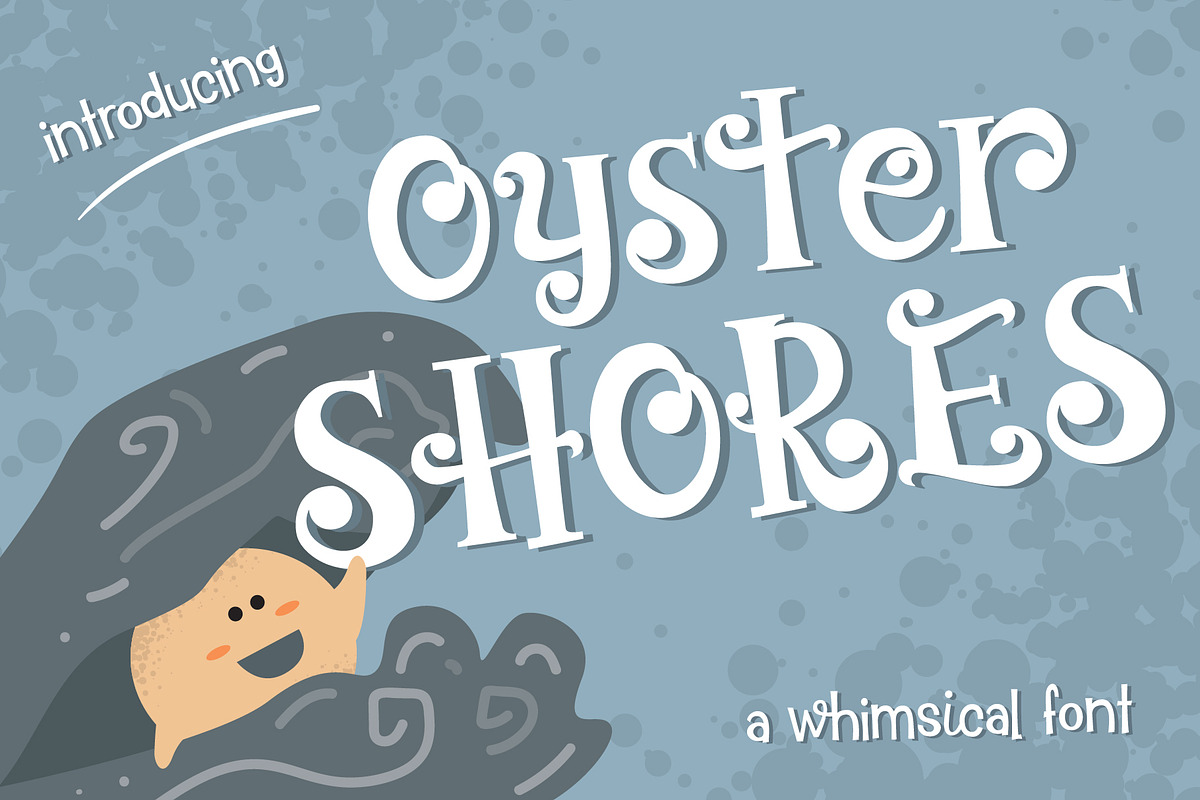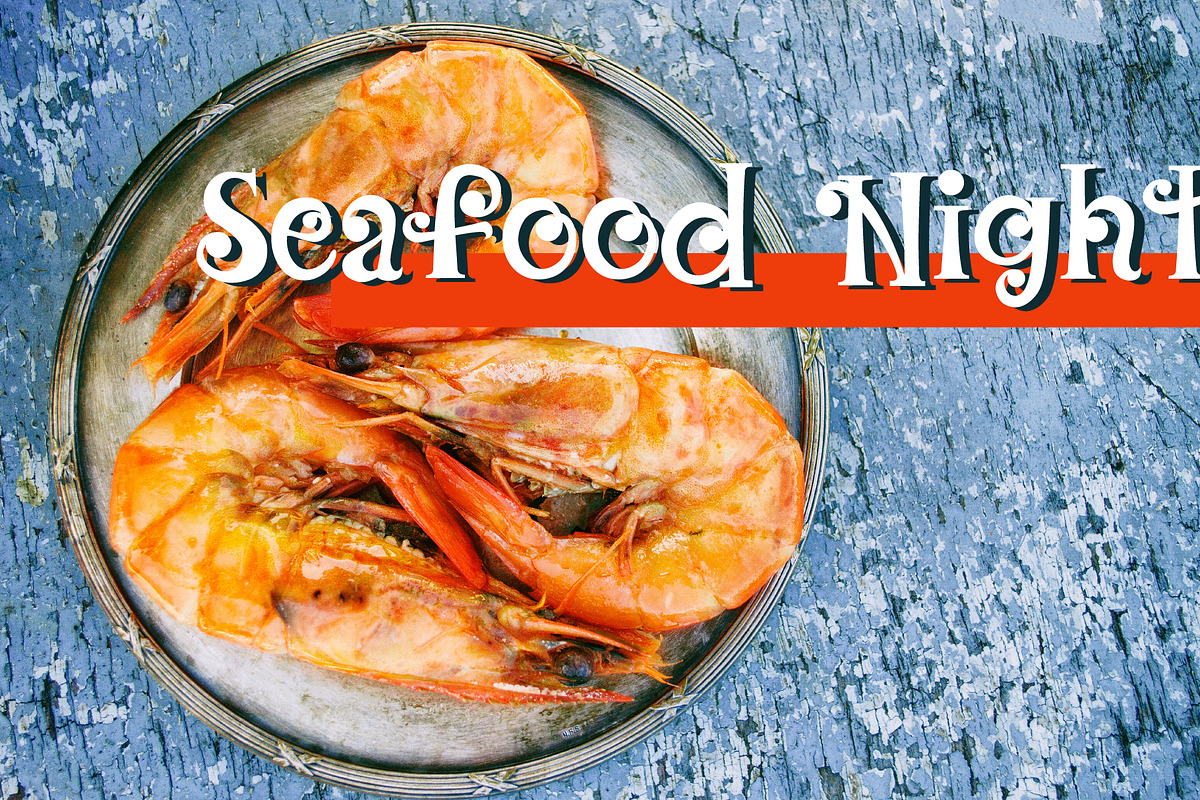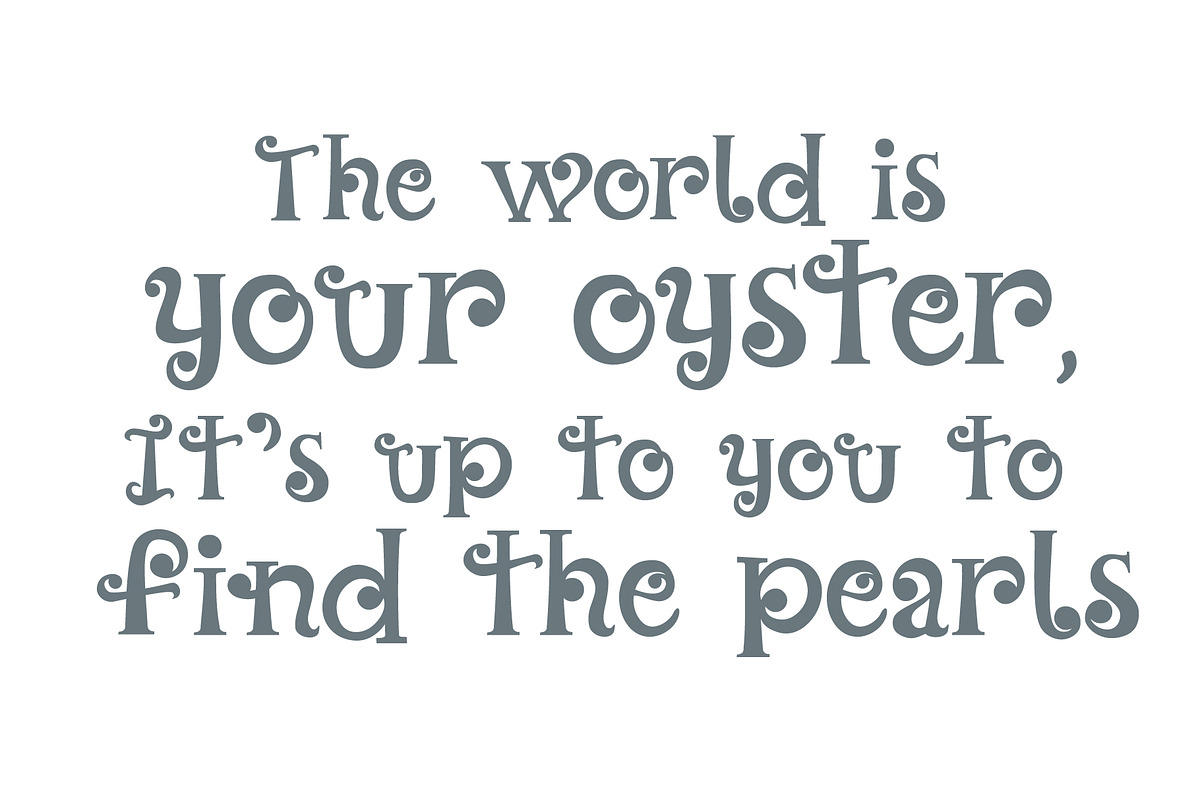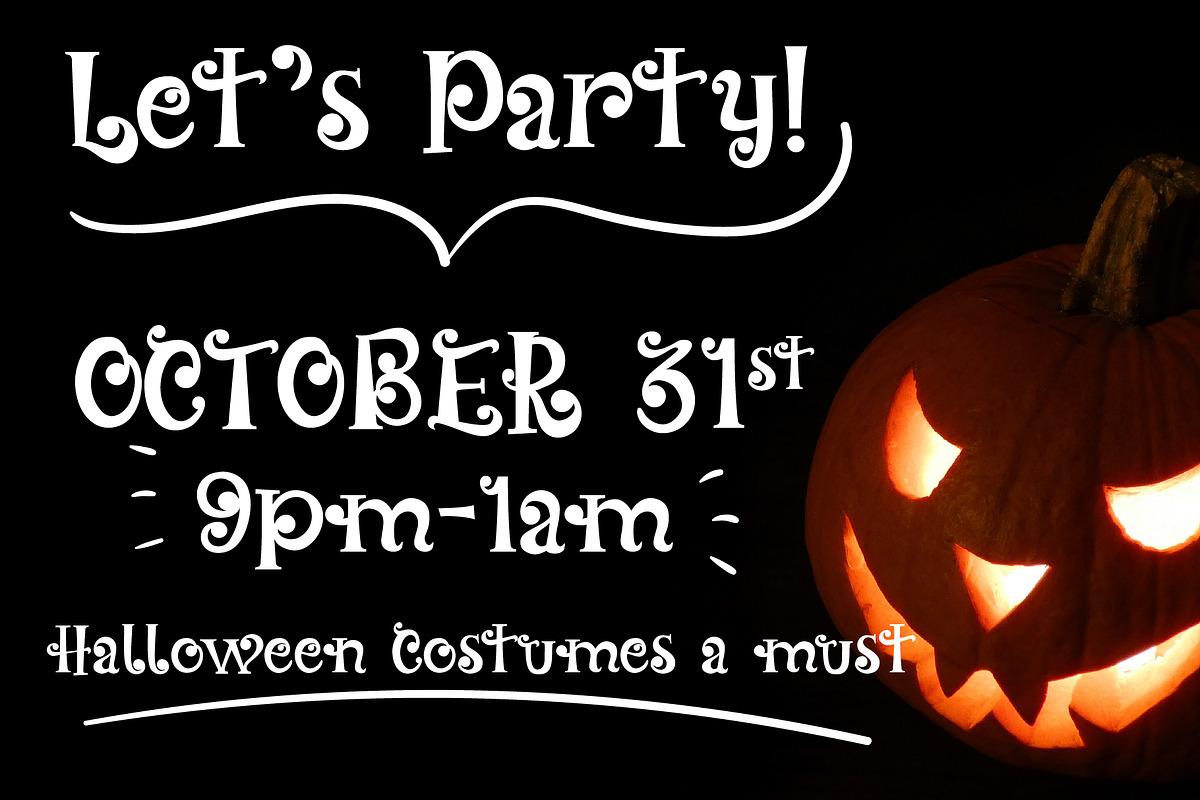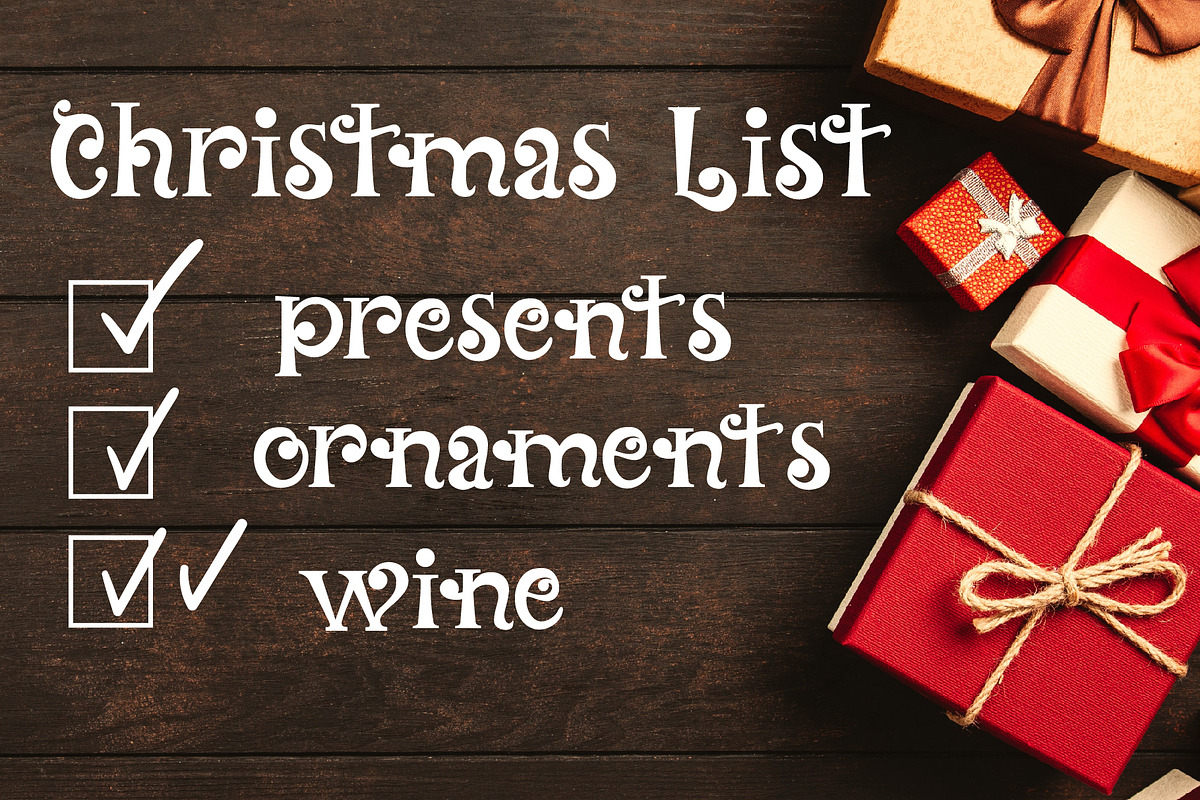
Oyster Shores Font
Introducing, Oyster Shores Font. A clean hand drawn font perfect for any craft projects. This font was inspired by summer, pearls, and the shoreline. This PUA font is perfect for professional designer, social media, or crafters.